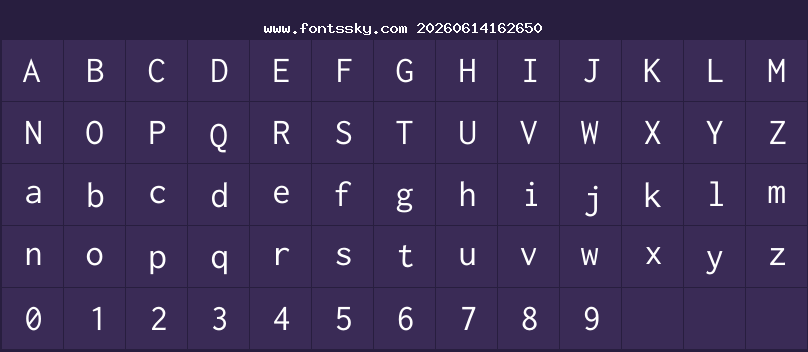
About Inconsolata-dz.otf
Inconsolata-dz.otf is a modern, elegant sans-serif font designed for ultimate readability and visual harmony. Perfect for branding, headlines, web design, and print materials.